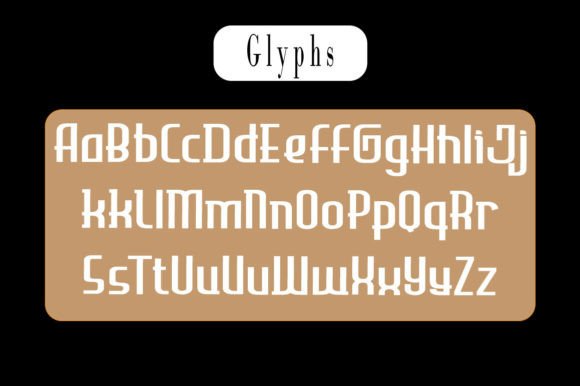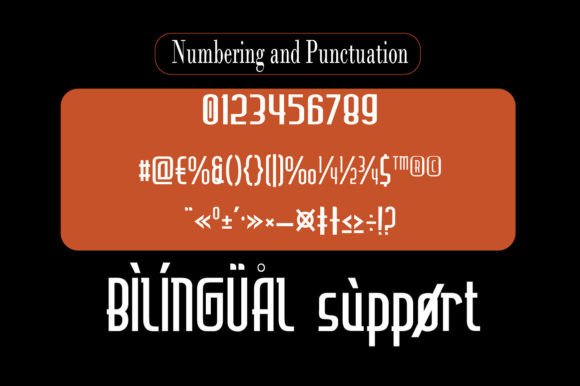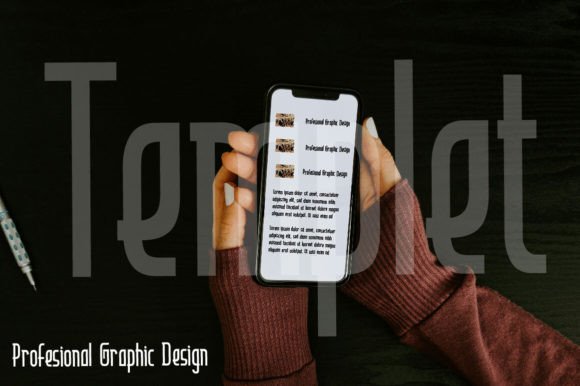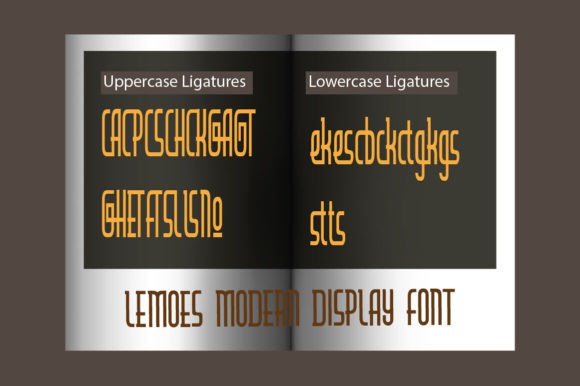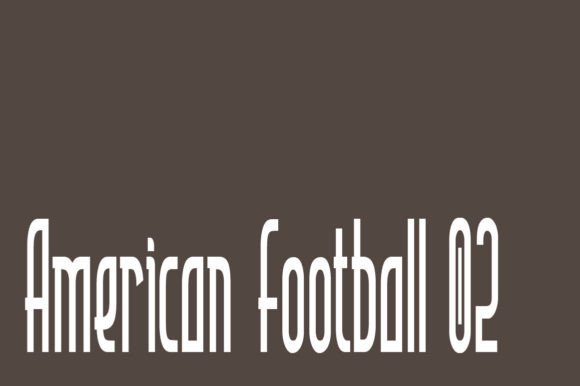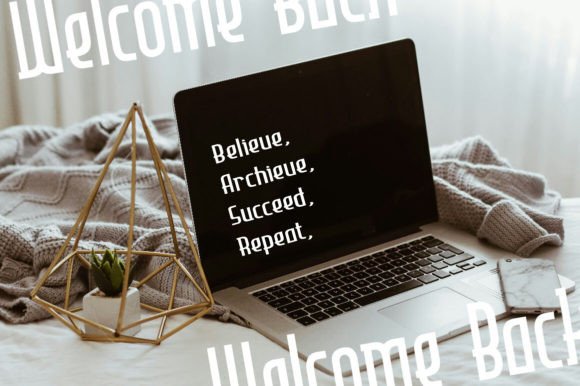
Introduction to Lemoes Font
As a designer, there’s nothing quite like the thrill of bringing a creative project to life. The rush of inspiration, the click of the mouse, and the excitement of watching your vision take shape. It’s moments like these that remind us why we love our craft. And what better way to elevate your design than with a stunning font that sets the tone for your entire project?
Enter the Lemoes Font, a modern and elegant display font that’s sure to impress your audience. With its sleek lines, sophisticated feel, and versatility, this font is the perfect design resource for any creative project. Whether you’re working on a branding project, designing name cards, or creating a poster, the Lemoes Font is a valuable addition to your toolkit.
Key Features of Lemoes Font
- Unique and Creative Design: Lemoes Font is a perfect design resource for creative projects that require a touch of elegance and sophistication.
- Resolution-Independent: The font is designed to be resolution-independent, ensuring it looks great on screens and in print at any resolution.
- Perfect for Digital Design: With its modern and sleek design, Lemoes Font is ideal for digital design projects, including web design, mobile apps, and social media graphics.
Honest Review: Lemoes Font
I recently stumbled upon the Lemoes Font and was excited to give it a try. As a designer, I’m always on the lookout for high-quality design resources to enhance my creative projects. The Lemoes Font does not disappoint.
Here are some things that work well for this font:
- ✨ High-quality design: The Lemoes Font has a clean and modern aesthetic that’s perfect for a variety of creative projects.
- ⚠️ Limited character set: While the Lemoes Font has a decent selection of characters, it’s not comprehensive, which may be a concern for designers working on complex projects.
- ⚠️ Not suitable for large-scale printing: I found that the font didn’t hold up well when enlarged for printing, which may be a drawback for designers working on physical materials.
Overall, I’m impressed with the Lemoes Font’s design and features. While it may not be perfect, it’s a great addition to any designer’s collection, especially for creative projects where a clean and modern aesthetic is desired.
Lemoes Font
Lemoes Font is a versatile and elegant design resource ideal for creative projects requiring high-quality typography. With its transparent background, this font is perfect for overlays, text effects, and other design elements.
Tips for Getting the Most Out of Lemoes Font
Experiment with different font sizes, colors, and combinations to achieve unique and creative effects. Use the font’s transparent background to create seamless overlays and text effects.
Lemoes Font is ideal for creative projects such as:
- Social media graphics and overlays
- Logos and branding elements